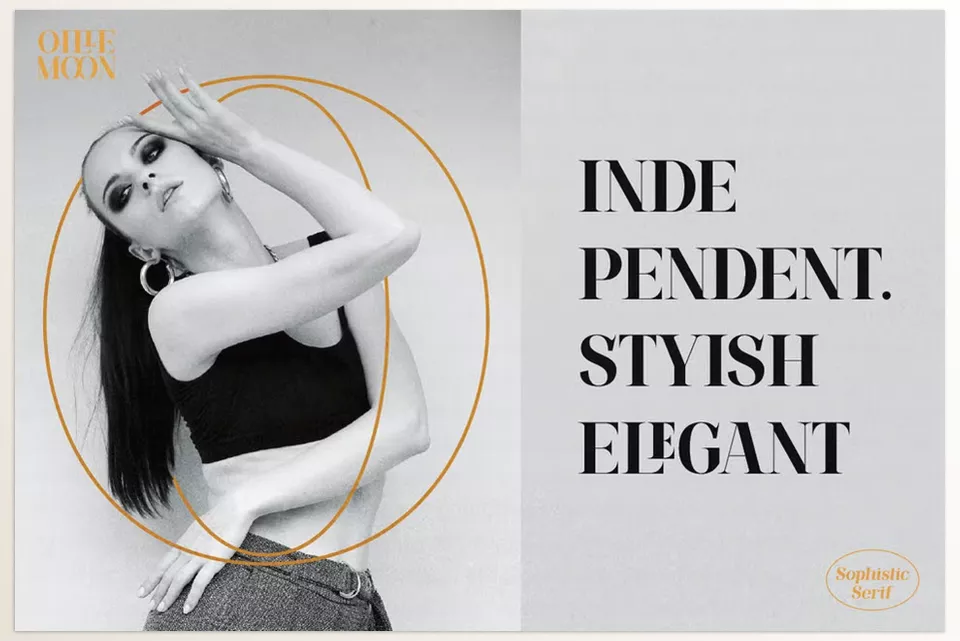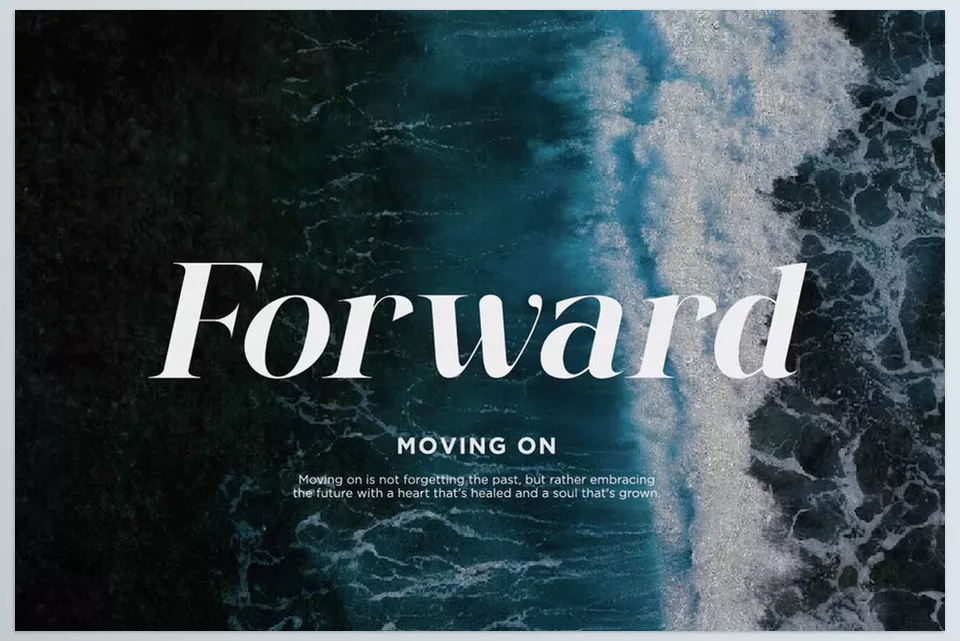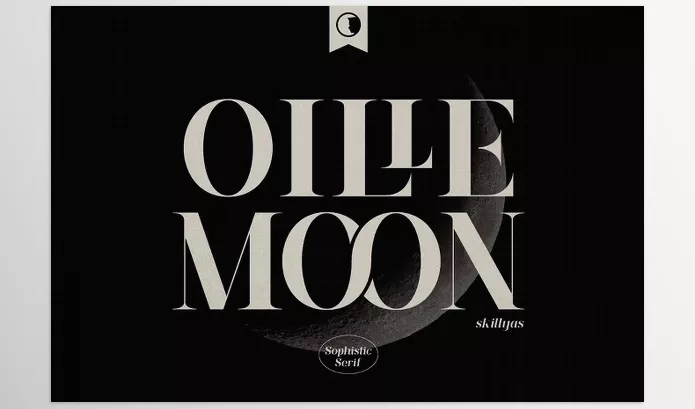
Creative Market – Oille Moon Display Serif Font is a refined typeface that is designed by merging the classic style of a serif font with a contemporary look. Its elegant design, with the set spacing and the tapered serifs, makes it ideal for branding, editorial layouts, and many other design projects.
Skillyas_Studio – Oille Moon Display Serif Features
• Extensive Glyph Library: Offers a vast array of glyphs for diverse design needs.
• Ligatures and Alternates: Provides stylistic variations and enhanced typography.
Image 1: Enduring elegance and adaptable design.
Creative Market - Oille Moon Display Serif - Enduring elegance and adaptable design.
Image 2: Carefully crafted letterforms, elegant serifs, and harmonious spacing.
Creative Market - Oille Moon Display Serif - Carefully crafted letterforms, elegant serifs, and harmonious spacing.